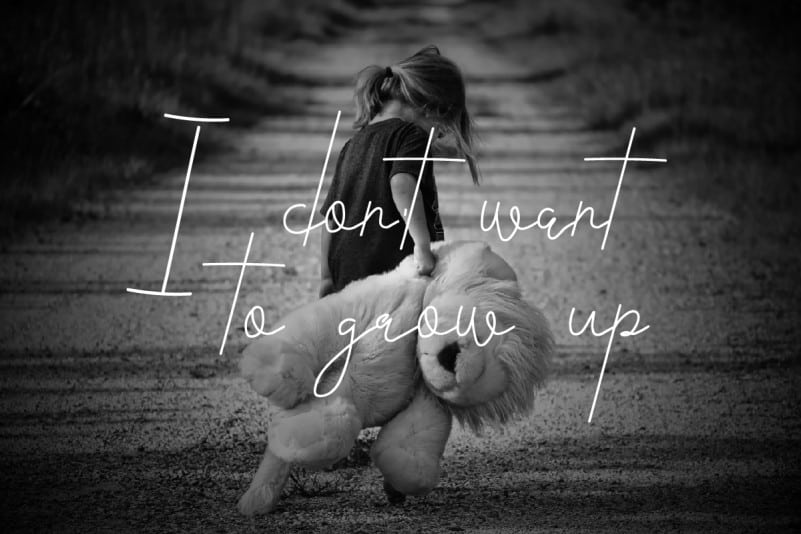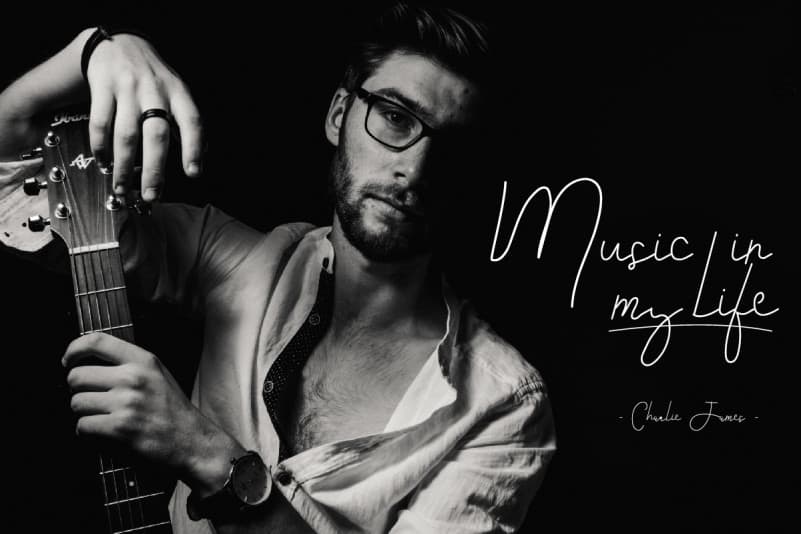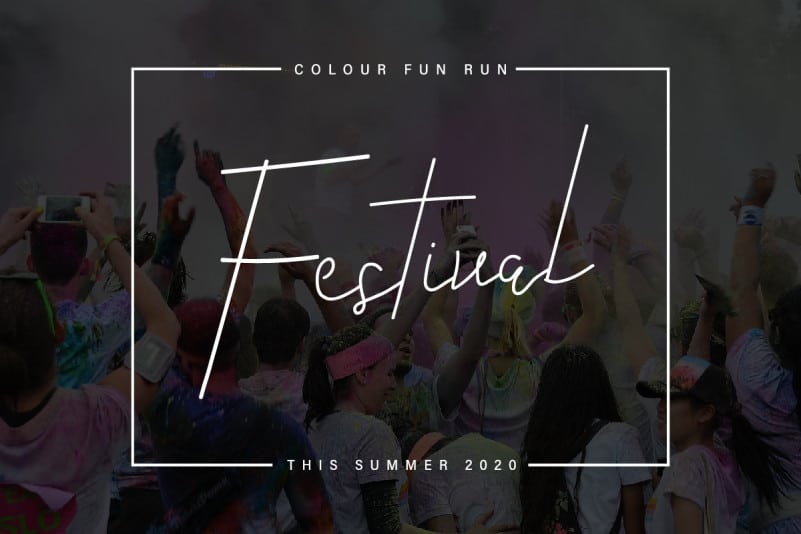
Hello, Kanya Signature Font is a classic signature script typeface. It has a unique, elegant, beautiful and stylish glyphs. Will be Great for branding, logo (with extended license), stationery, business card, signage, flyer, brochure etc.